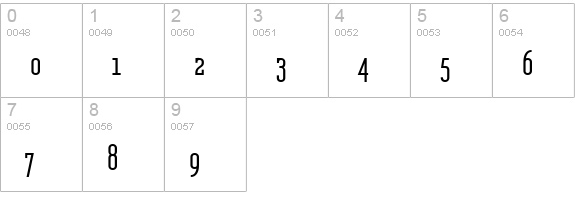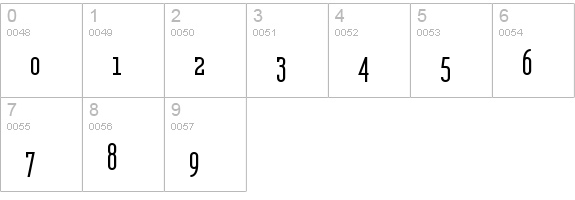
Unknown Caller BTN SC XBd font is a unique and captivating typeface that combines boldness and elegance in perfect harmony. With its sleek and modern design, this font is sure to make a statement in any project or design. The Unknown Caller BTN SC XBd font is characterized by its tall and slender letterforms, which exude a sense of sophistication and professionalism. Each letter is carefully crafted, with clean lines and sharp edges, giving it a contemporary and polished look. This font is perfect for headlines, titles, logos, and any other design element that requires a bold and eye-catching touch. Whether you're designing a website, creating a poster, or working on a branding project, the Unknown Caller BTN SC XBd font will add a touch of style and elegance to your work. What makes this font even more appealing is that it is available for free download at FontsMarket.com. You can easily access and download this font to enhance your design projects without any cost. With its versatility and freely available nature, the Unknown Caller BTN SC XBd font is a must-have for any designer or creative professional. So why wait? Take advantage of the opportunity to download the Unknown Caller BTN SC XBd font for free at FontsMarket.com and elevate your designs to new heights.